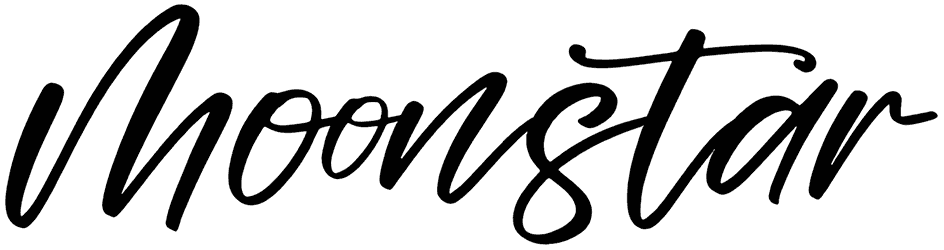
Moonstar Font
For a distinct design, you can count on natural context to communicate well with your audience. This soft and casual handwritten font, which is called Moonstar, can be a nice adornment for any classic or modern subject. As an A-Z characters script font, it would be a suitable illustration for a lot of projects, from formal to informal, like logos, posters, planners, and whatnot.